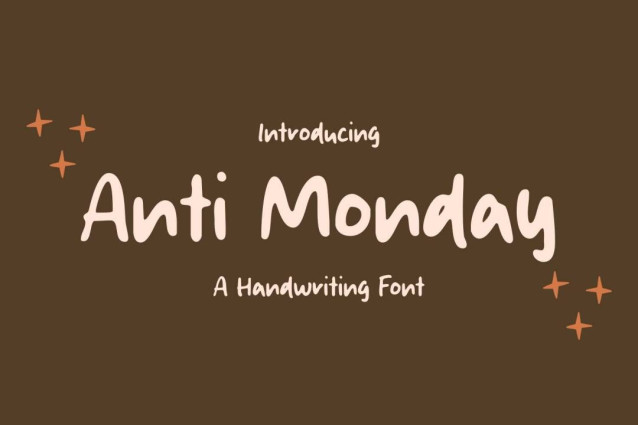
Anti Monday Font
Anti Monday Font is a simple and friendly handwritten font. Its natural and unique style makes it incredibly fitting to a large pool of designs. The only limit is your imagination!